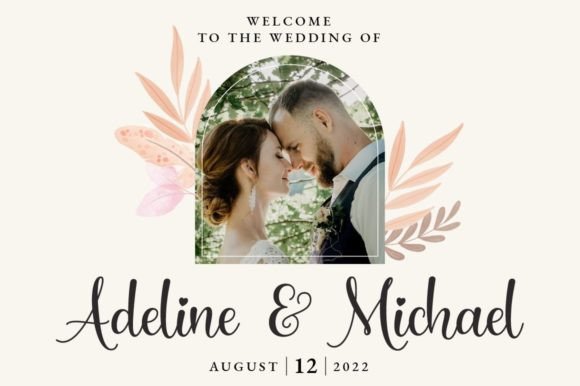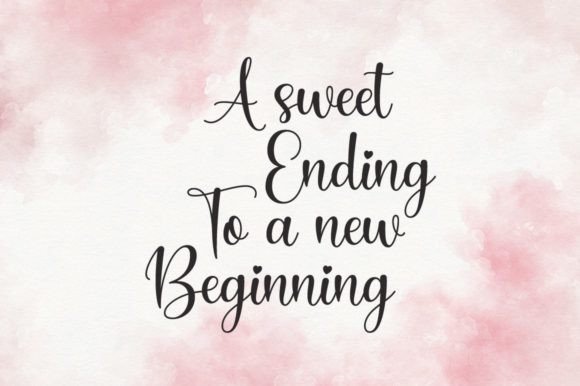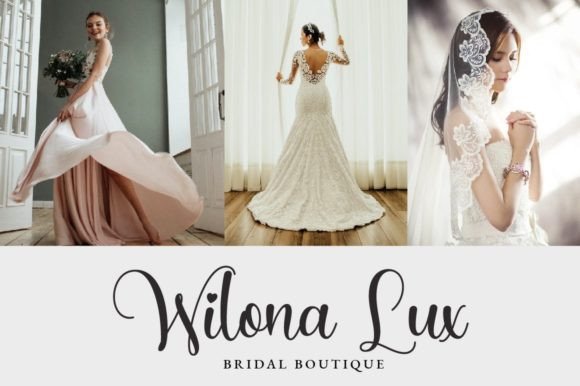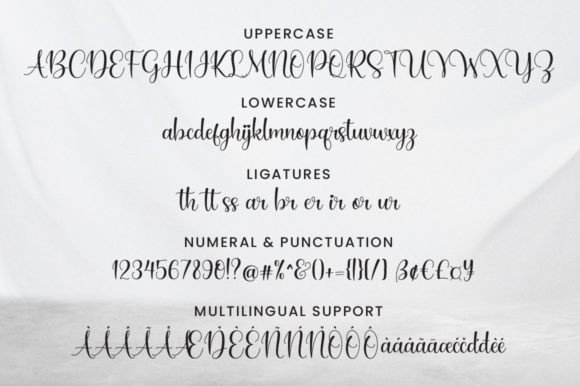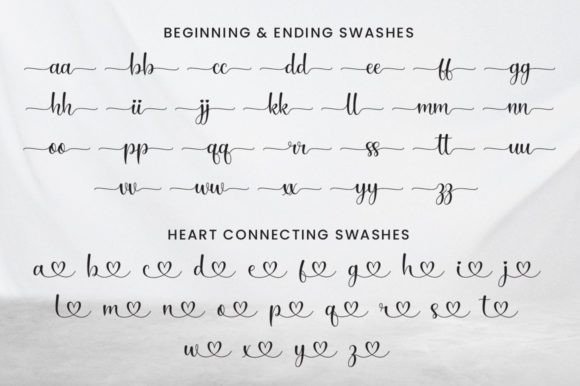
Hailey Joseph Font
About Hailey Joseph Font
“Hailey Joseph” emerges as a modern calligraphy font characterized by smooth and flowing handwritten strokes. Tailored for elegance and versatility, this font finds its perfect application in logos, wedding stationery, cards, gift designs, photography, watermarks, product packaging, and handwritten quotes.
The smooth and graceful flow of “Hailey Joseph” lends a sophisticated touch to your designs, making it particularly suitable for projects that require a blend of contemporary and classic aesthetics. Whether you’re creating a timeless wedding invitation or a stylish logo for a brand, this font provides the finesse needed for such applications.
One notable feature of “Hailey Joseph” is its PUA encoding, denoting Private Use Area. This encoding ensures convenient access to all the glyphs and swashes the font offers. This means you can effortlessly incorporate a variety of unique characters and decorative elements into your designs, enhancing your creative possibilities.
Whether you’re a designer looking for a font that adds a touch of refinement to your creations or an individual seeking a font for personal projects, “Hailey Joseph” proves to be a versatile and elegant choice. Its calligraphic style and PUA encoding combine to offer accessibility and creative freedom, allowing you to infuse your designs with a sense of sophistication and individuality.